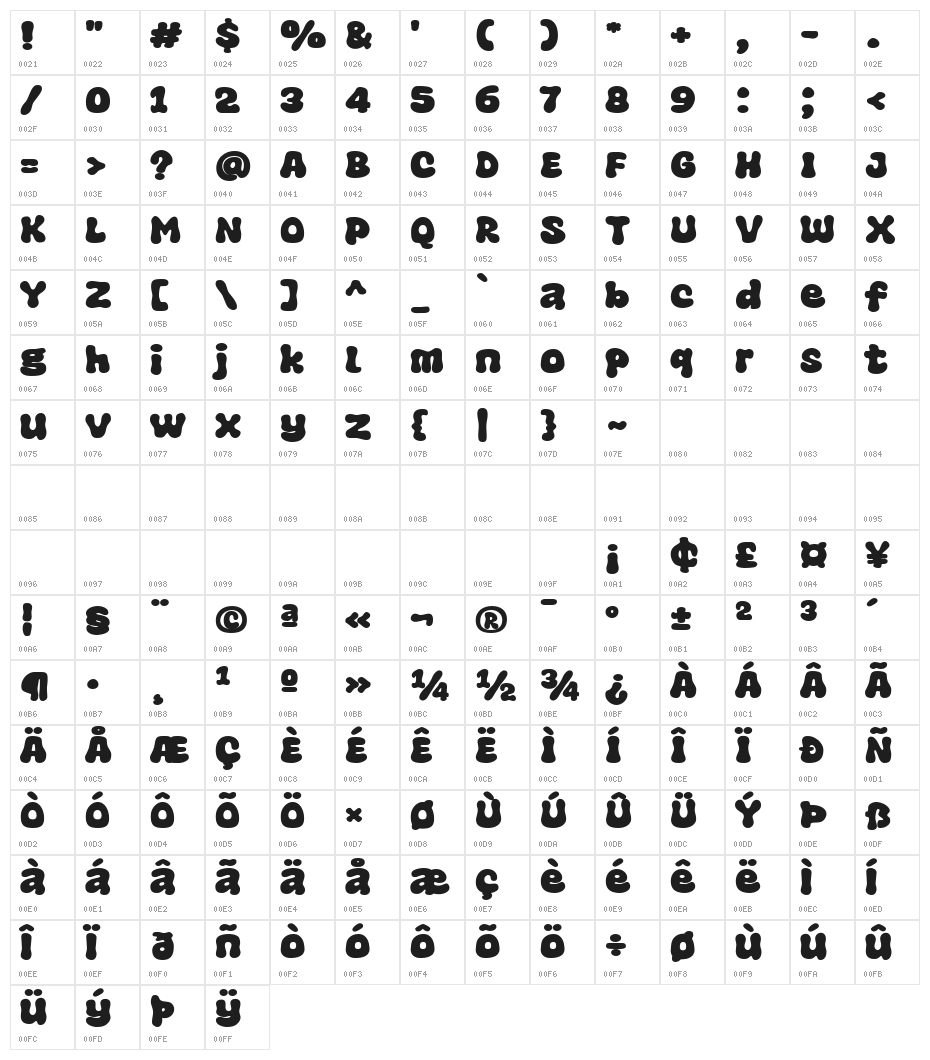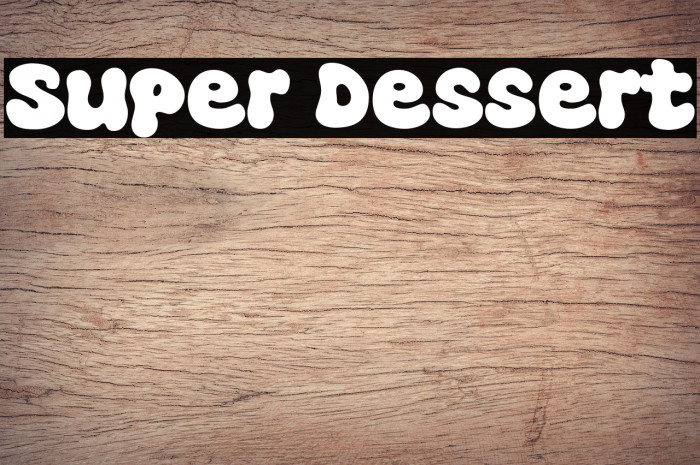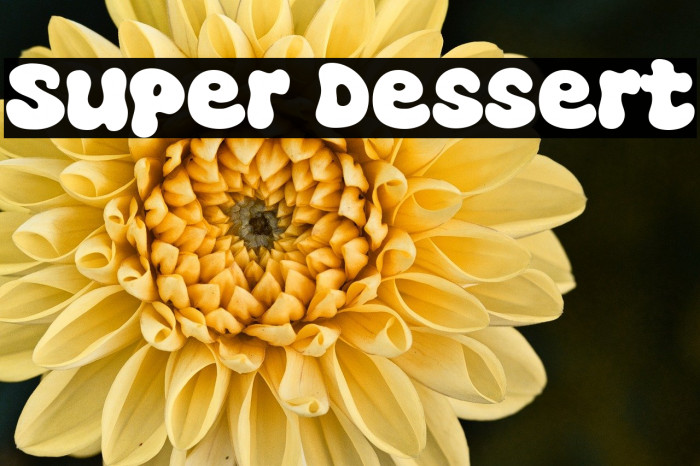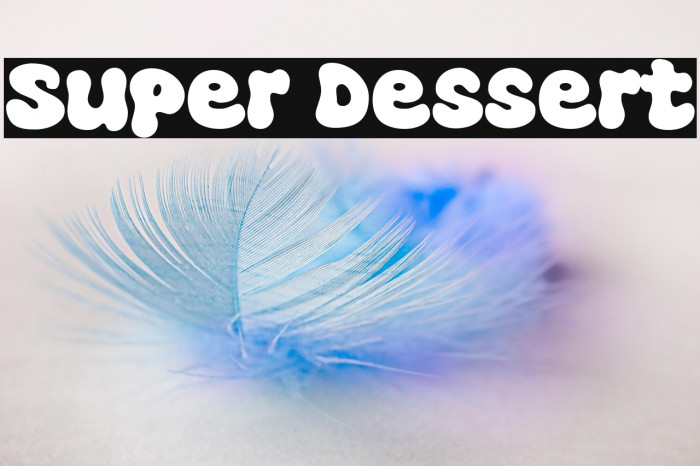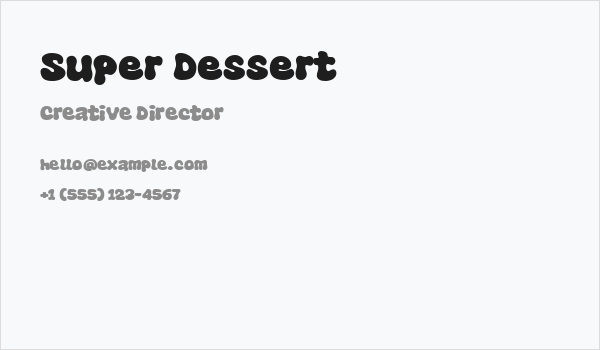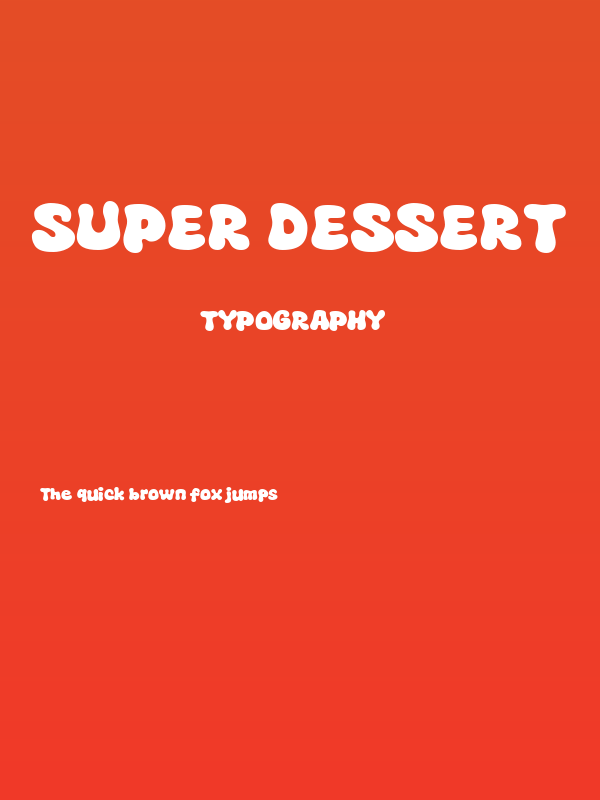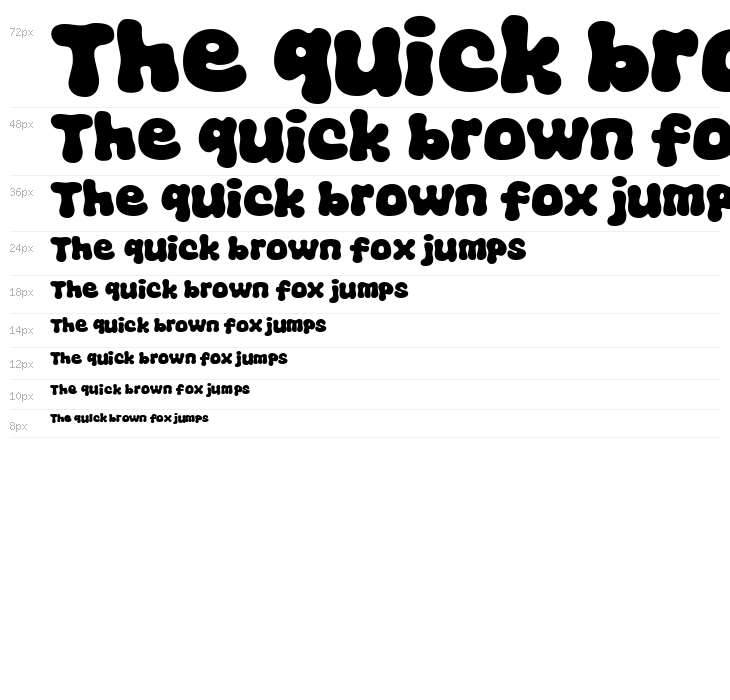
Super Dessert Font
Super Dessert Description
This playful and bold font features rounded, bubbly characters that exude a sense of fun and whimsy. The letters are thick and substantial, with a consistent stroke width that gives them a strong presence. The rounded edges and soft curves create a friendly and approachable feel, making it ideal for designs that aim to be inviting and cheerful. The font includes a full set of uppercase and lowercase letters, numbers, and a variety of special characters, ensuring versatility in its application. Its unique style is reminiscent of retro and pop culture aesthetics, adding a nostalgic yet modern touch to any project.
| Overall Style | Playful, Retro |
| Proposed Projects | Ideal for children's books, playful branding, party invitations, and retro-themed designs. |